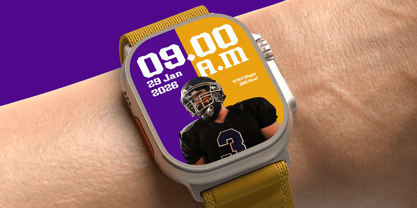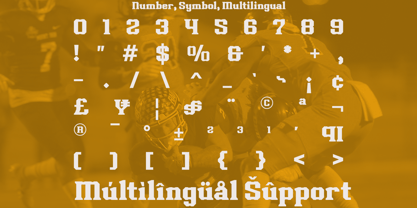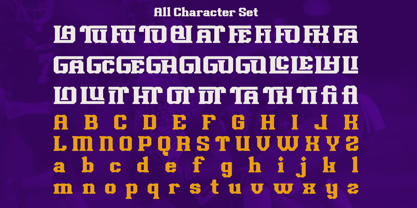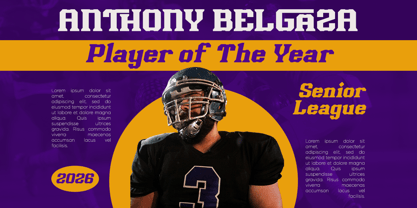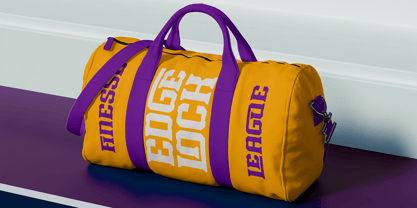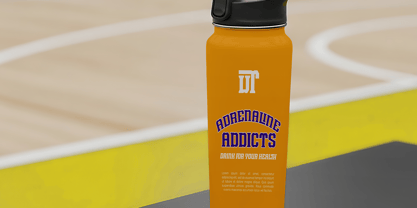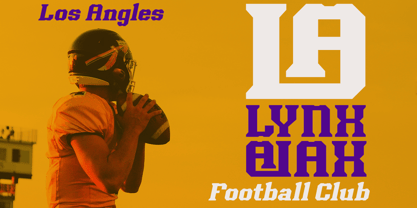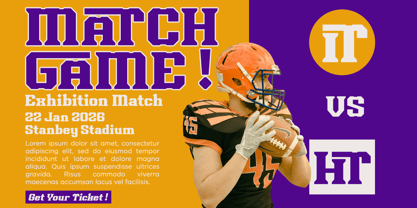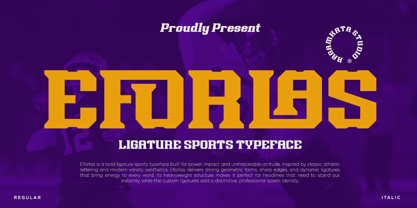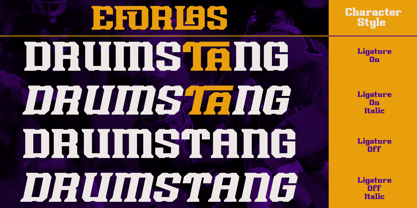
Eforlas
por RagamKata
La familia tipográfica Eforlas fue diseñada por Yogiswhara Dio Prakoso Riadi y publicada por RagamKata. Eforlas contiene 2 estilos y opciones de paquete familiar. Más información sobre esta familia
Eforlas is a bold ligature sports typeface designed for power, impact, and an unmistakable attitude. Drawing inspiration from classic athletic lettering and modern varsity aesthetics, Eforlas features strong geometric forms, sharp edges, and dynamic ligatures that infuse energy into every word. Its heavyweight structure makes it ideal for headlines that demand immediate attention, while the custom ligatures contribute to a unique, professional sports identity. This typeface is perfect for a variety of applications, including sports branding, team logos, jersey numbers, esports logos, athletic apparel, posters, social media graphics, YouTube thumbnails, event promotions, magazine headlines, packaging, and merchandise designs. Thank You! Ragamkata
Diseñadores: Yogiswhara Dio Prakoso Riadi
Fundición: RagamKata